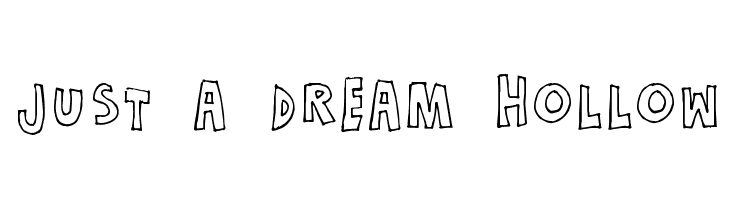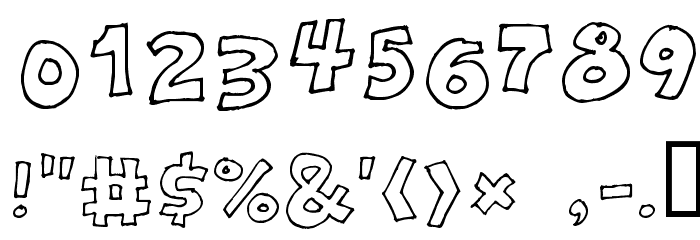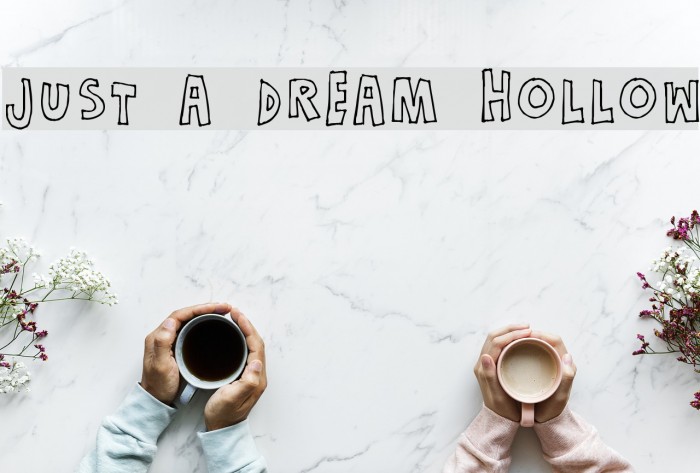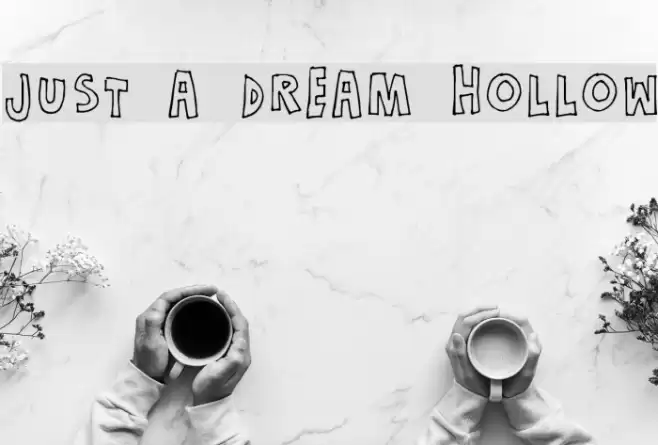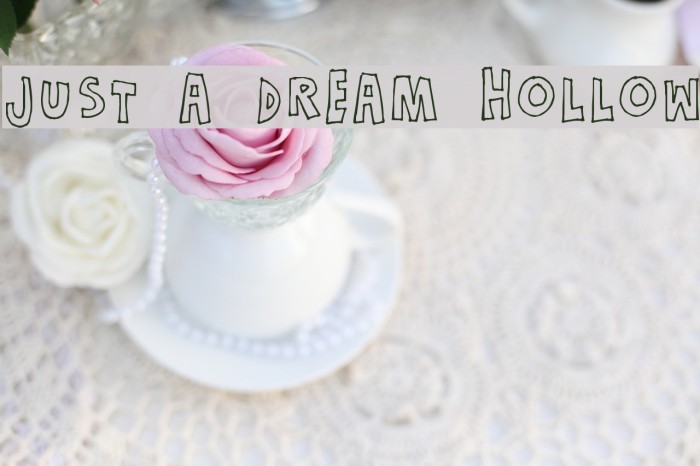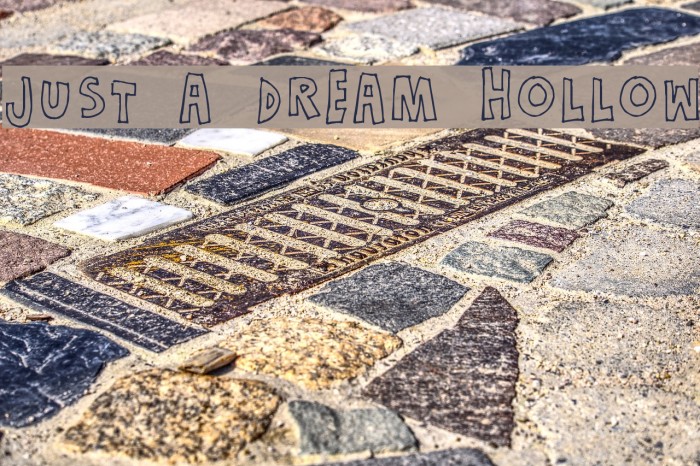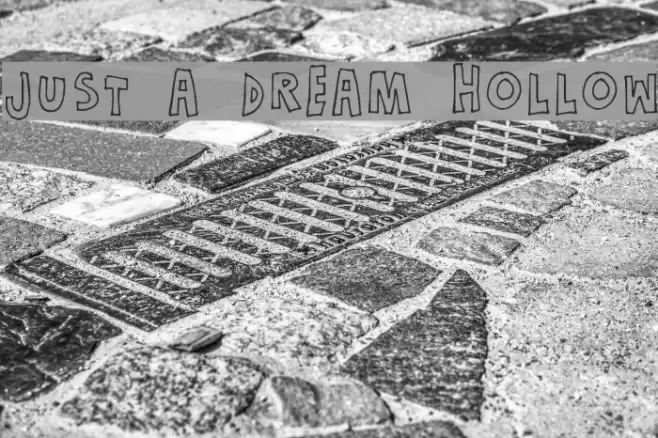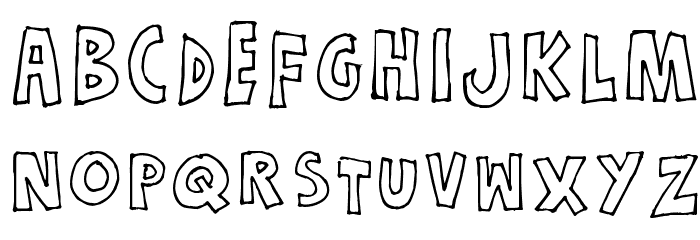
Just a dream Hollow Font
Just a dream Hollow Description
This font features a playful and whimsical style with hollow, hand-drawn characters. Each letter and number is outlined, giving it a unique, sketch-like appearance. The irregularity in line thickness adds to its charm, making it feel casual and approachable. The characters are slightly uneven, enhancing the hand-crafted aesthetic. This font is perfect for projects that require a fun and informal touch, such as children's books, playful branding, or creative posters. The special characters maintain the same hollow, outlined style, ensuring consistency across all glyphs.
| Proposed Projects | Ideal for children's books, playful branding, creative posters, and informal invitations. |